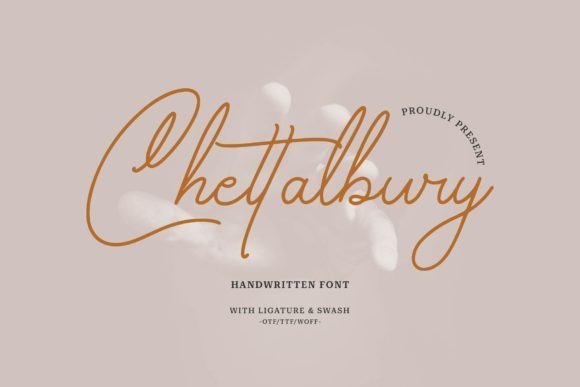
Discover the Perfect Script for Your Next Creative Project
Have you ever sat down with a blank sheet of paper, a pen in hand, and a spark of inspiration? That’s the moment when creativity truly comes alive. It’s the feeling of bringing a concept to life, of watching your ideas take shape and form. And for designers, finding the right font can be the key to unlocking that magic.
Enter the Chettalbury Font, a beautiful handwritten script font designed to add a personal touch to your projects. With its elegant and smooth design, flowing curves, and natural strokes, it’s perfect for invitations, greeting cards, or logos that need a stylish and friendly look. Whether you’re a seasoned designer or just starting out, the Chettalbury Font is a valuable addition to your toolkit, offering a versatile and timeless aesthetic that’s sure to impress.
Chettalbury Font Key Features
- Unique Characteristics: Chettalbury Font features a unique blend of modern and traditional elements, with intricate details and ornate flourishes that set it apart from other fonts.
Chettalbury Font Review
I recently had the chance to work with the Chettalbury font, and I must say it’s a unique addition to any design project. ✨ The font’s elegant, handwritten feel is perfect for adding a touch of sophistication to invitations, greeting cards, or even marketing materials.
Here are some of the things that I particularly liked about Chettalbury:
- ✨ Elegant, handwritten feel that’s perfect for adding a touch of sophistication
- ✨ Great for creating a sense of warmth and personality in your designs
- ✨ Works well in both digital and print formats
However, I did encounter some limitations when using the Chettalbury font:
- ⚠️ Limited character set, which may not be ideal for long blocks of text
- ⚠️ May not be suitable for body text, as it can be difficult to read in smaller font sizes
Overall, I think the Chettalbury font is a great addition to any design project that requires a touch of elegance and sophistication. While it may have some limitations, I think it’s well worth using in moderation to add some personality to your designs.
Chettalbury Font Practical Application Guide
The Chettalbury font is a beautiful, elegant script font that can add a touch of sophistication to your designs. To use the Chettalbury font, follow these steps:
Tips for Getting the Most Out of Chettalbury Font
Use the Chettalbury font for headings, titles, and quotes to add a touch of elegance to your designs. Experiment with different font sizes and colors to create visual interest. Avoid using the Chettalbury font for body text, as it may be difficult to read.
The Chettalbury font is ideal for:
- Typography-based designs
- Stationery and greeting cards
Alternatives to Chettalbury Font
Great Vibes Font is a modern script font that offers a more elegant and sophisticated look compared to Chettalbury Font. It’s perfect for designs that require a touch of sophistication, such as wedding invitations, luxury branding, and high-end packaging.
Comparison: Great Vibes Font has a more refined and polished look, making it suitable for formal designs. Chettalbury Font, on the other hand, has a more playful and casual feel.
Pacifico Font is a beautiful, elegant script font that works well for designs that require a sense of relaxation and calmness. It’s perfect for beach-inspired branding, travel websites, and wellness-related designs.
Comparison: Pacifico Font has a more laid-back and natural feel, making it suitable for designs that require a sense of serenity. Chettalbury Font, on the other hand, has a more energetic and playful vibe.